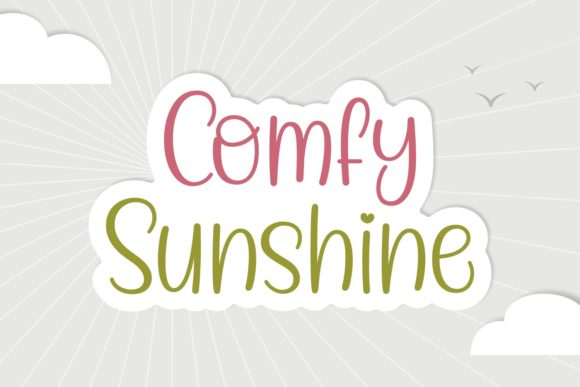
Introducing Comfy Sunshine Font, the ultimate script font for creating simple yet captivating tattoos that speak volumes. This thin-line handwritten font, crafted by the experts at Creative Fabrica Fonts, exudes a sense of effortless elegance and charm. With its smooth characters and delicate whisps, Comfy Sunshine is more than just a font - it's an artistic expression that breathes life into your tattoo designs.
Picture this: your client walks into your studio with a vision for a tattoo that tells a story, a symbol that captures their spirit. With Comfy Sunshine Font, you have the power to transform their dream into reality. Its thin lines dance across the skin, creating a visual symphony that captivates the eye and stirs the soul. Each letter flows seamlessly into the next, forming words that hold deep meaning and resonate with the wearer.
The beauty of Comfy Sunshine Font lies in its versatility. Whether you're creating a minimalist tattoo with a single word or an intricate design that covers an entire arm, this font adapts effortlessly to your artistic vision. Its delicate strokes lend a touch of whimsy to quotes and phrases, while its smooth curves add a sense of grace to names and symbols.
Dive into the world of Comfy Sunshine Font and unlock a realm of possibilities. Let your creativity soar as you explore the endless ways to express yourself through the art of tattooing. Transform your clients' stories into stunning masterpieces that they'll cherish for a lifetime.
With Comfy Sunshine Font, the possibilities are as limitless as your imagination. Embrace the artistry, embrace the beauty, and elevate your tattoo designs to new heights. Download Comfy Sunshine Font today and embark on a journey of artistic exploration that will leave your clients awe-inspired.